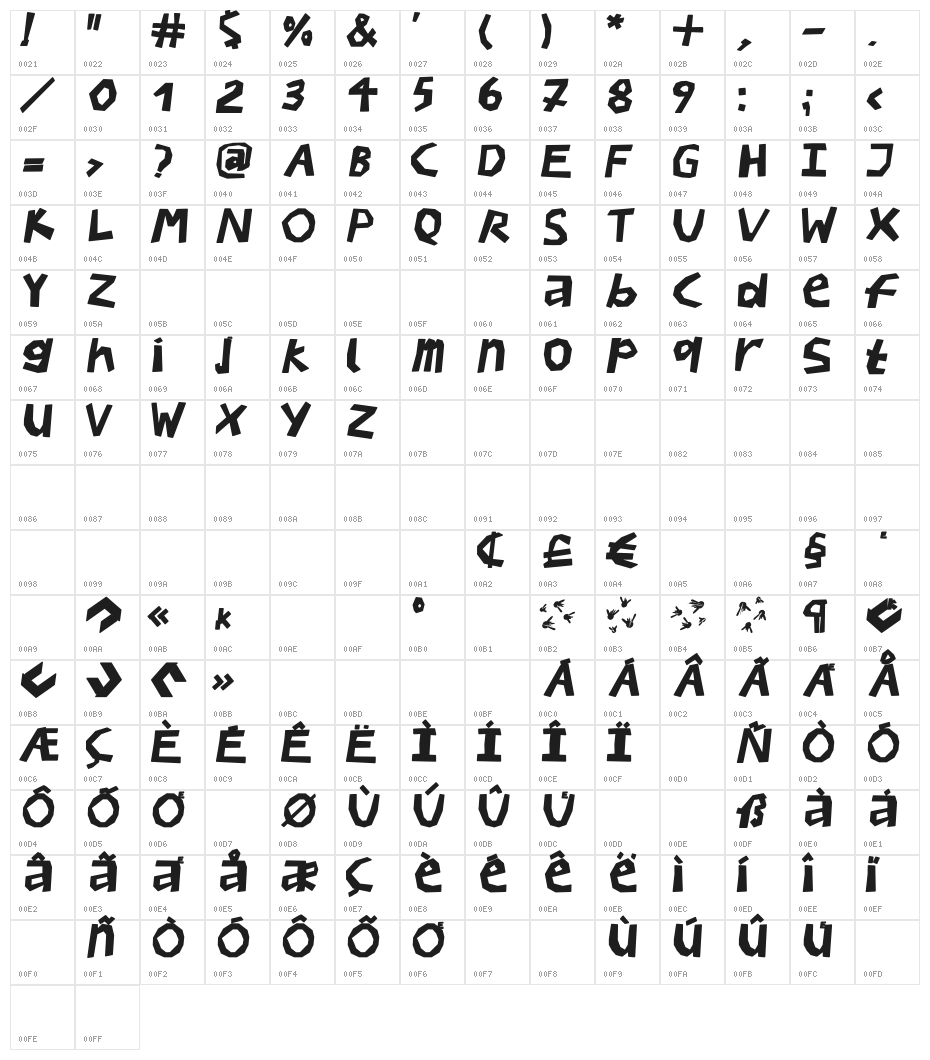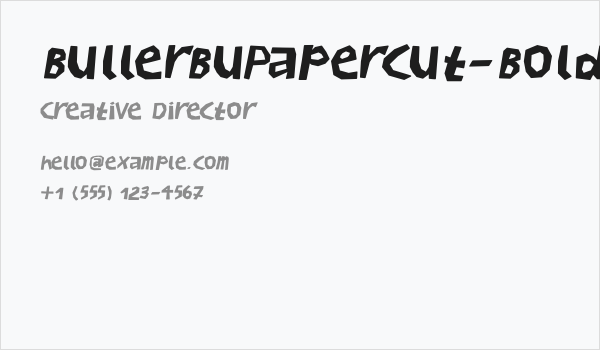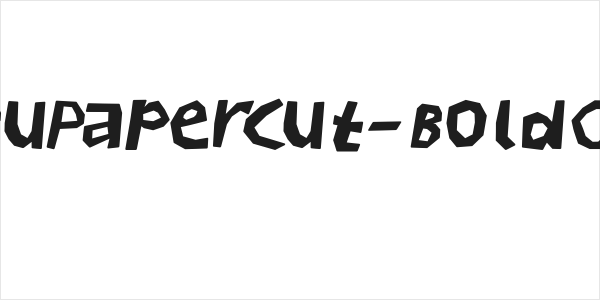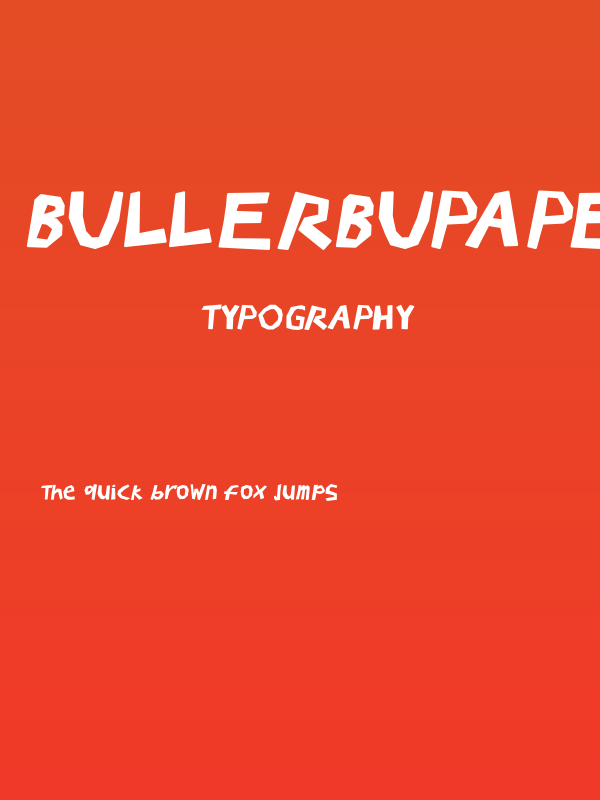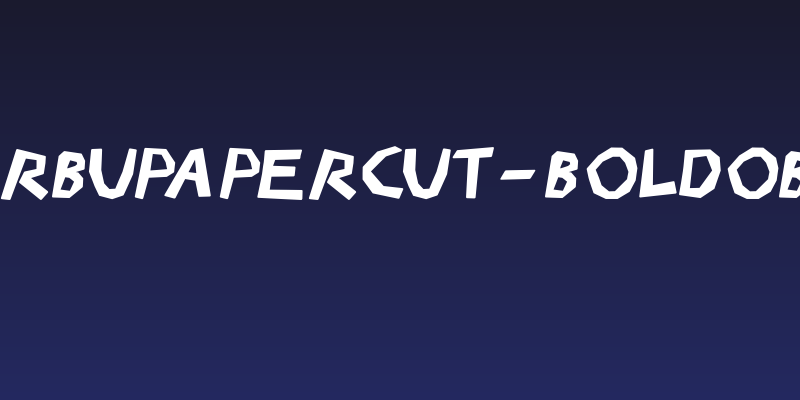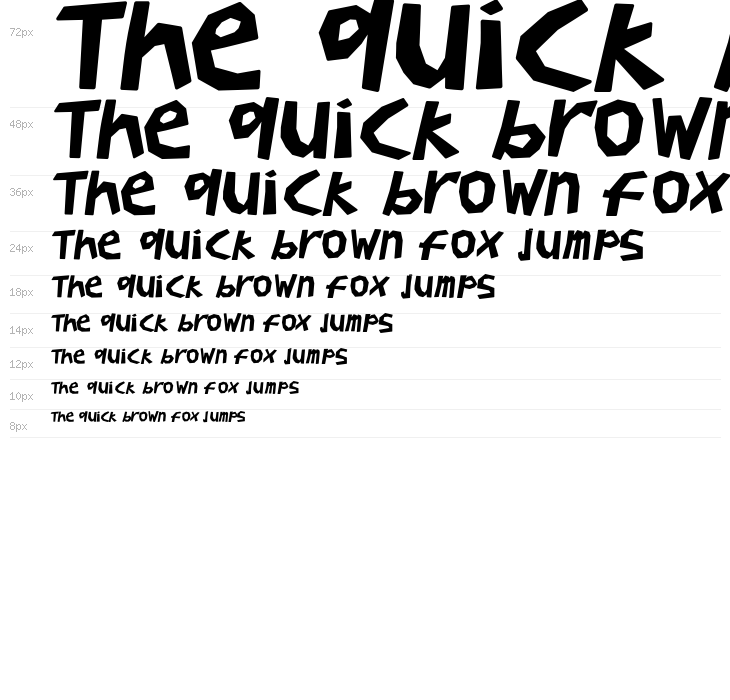
BullerBuPapercut-BoldOblique Font
BullerBuPapercut-BoldOblique Description
This font features a bold and dynamic style with an oblique slant, giving it a playful and energetic appearance. The characters are designed with a cut-out, papercut effect, which adds a unique and handcrafted feel. The bold strokes and angular shapes create a strong visual impact, making it suitable for eye-catching designs. The uppercase and lowercase letters maintain a consistent style, while the numbers and special characters complement the overall aesthetic. This font's distinctive look makes it ideal for creative projects that require a touch of whimsy and boldness.
| Overall Style | Playful, Handcrafted |
| Proposed Projects | Ideal for children's book covers, playful branding, posters, and creative invitations. |